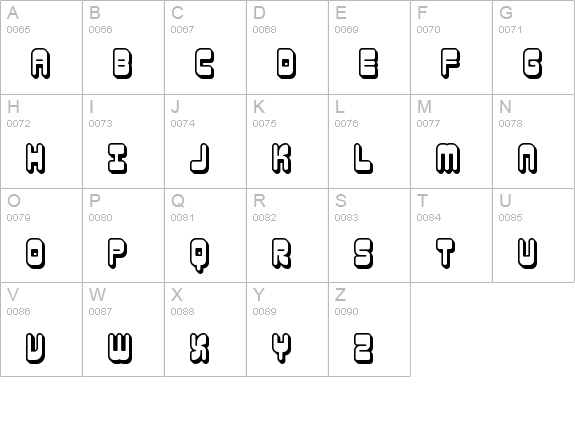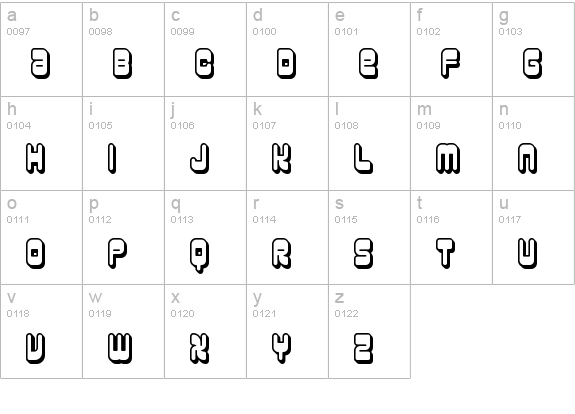
Reason Shadow BRK Font Details
Reason Shadow BRK is a captivating and versatile typeface that effortlessly combines elegance with a touch of mystery. This font exudes an air of sophistication and intrigue, making it perfect for a wide range of design projects. Its unique shadowed effect adds depth and dimension, creating a visually stunning result. Whether you're designing a logo, poster, or website, Reason Shadow BRK will undoubtedly make a lasting impression. Its clean lines and balanced proportions give it a timeless appeal, while the shadow effect adds a modern twist. This font is both classic and contemporary, making it suitable for any style or theme. But what makes Reason Shadow BRK truly exceptional is the fact that it is free. Yes, you read that correctly. This exceptional font is freely available to download at FontsMarket.com. Now you can elevate your designs without breaking the bank. Take advantage of this amazing opportunity to enhance your creative projects with a font that is both visually striking and budget-friendly. So, whether you're a seasoned designer or just starting out, Reason Shadow BRK is a must-have addition to your font library. Its versatility, elegance, and affordability make it a valuable asset for any design project. Download Reason Shadow BRK today at FontsMarket.com and let your creativity shine with this remarkable free font.